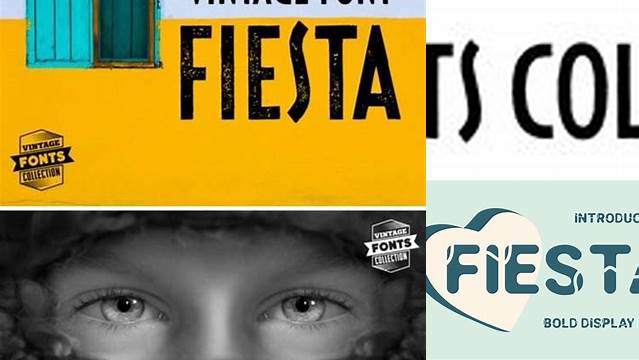
VFC Fiesta Font: Free Download & Vintage Font Collection Guide
Hey guys! Are you looking to add some vintage flair to your projects? You've come to the right place! We're diving deep into the world of vintage fonts, specifically the awesome VFC Fiesta font. This guide will give you the lowdown on how to snag this font for free, plus explore a whole collection of other vintage fonts that'll make your designs pop. Let's get started!
1. Introduction to Vintage Fonts
Vintage fonts are more than just old-fashioned typefaces; they are a gateway to different eras, each carrying its own unique story and aesthetic. From the elegant serifs of the Victorian era to the bold, geometric sans-serifs of the mid-century modern movement, these fonts offer a rich tapestry of styles that can add depth and character to any design project. Vintage fonts evoke nostalgia and history, making them perfect for creating a sense of authenticity and timelessness. They can transport your audience to another time, enhancing the emotional impact of your message. Whether you're working on branding, posters, websites, or any other design endeavor, incorporating vintage fonts can instantly elevate your work, giving it a distinctive and memorable appeal. Understanding the nuances of these fonts – their historical context, their stylistic characteristics, and their best uses – is crucial for harnessing their full potential.
Why are vintage fonts so popular today? One key reason is their ability to create a sense of authenticity and nostalgia. In a world dominated by sleek, modern designs, vintage fonts offer a refreshing contrast, reminding us of simpler times and classic aesthetics. They carry a weight of history, suggesting craftsmanship, quality, and attention to detail. This makes them particularly effective for brands that want to communicate a sense of heritage, tradition, or timelessness. Moreover, vintage fonts are incredibly versatile. They can be adapted to a wide range of applications, from logos and headlines to body text and decorative elements. By choosing the right vintage font, you can add personality and character to your project, making it stand out in a crowded marketplace. The ongoing revival of vintage styles in fashion, interior design, and other creative fields further fuels the demand for vintage fonts, making them an essential tool in any designer's arsenal.
2. What is VFC Fiesta Font?
The VFC Fiesta font is a standout typeface in the realm of vintage fonts, known for its lively and festive character. Designed to capture the spirit of celebration and joy, this font is perfect for projects that require a touch of whimsy and nostalgia. The VFC Fiesta font typically features bold, playful letterforms with unique details that set it apart from more conventional vintage fonts. Its design often includes decorative elements, such as swirls, curls, or serifs, that add to its distinctive personality. This font is particularly well-suited for headlines, posters, invitations, and other display purposes where a strong visual impact is desired. The VFC Fiesta font exudes energy and vibrancy, making it an excellent choice for events, parties, or any project that aims to convey a sense of fun and excitement.
The unique characteristics of the VFC Fiesta font make it a favorite among designers looking to create eye-catching and memorable designs. Its bold letterforms ensure legibility, while its decorative elements add a touch of sophistication and charm. The font's festive nature makes it ideal for projects related to celebrations, such as birthdays, holidays, or festivals. It can also be used effectively in branding materials for businesses that want to project a playful and approachable image. The VFC Fiesta font is versatile enough to be used in both digital and print media, allowing for a wide range of creative applications. Whether you're designing a poster, a logo, or an invitation, this font can help you create a design that truly stands out. Its ability to capture attention and convey a sense of joy makes it a valuable asset in any designer's toolkit.
3. Key Features of VFC Fiesta Font
The VFC Fiesta font is characterized by several key features that make it a unique and valuable asset for designers. First and foremost, its bold letterforms ensure high readability, making it suitable for a variety of applications, from headlines to posters. The distinct decorative elements, such as unique serifs, swirls, and curves, add a touch of personality and charm, setting it apart from more generic vintage fonts. These details contribute to the font's overall festive and playful character, making it an excellent choice for projects that aim to convey a sense of joy and celebration. The font's design often incorporates a sense of rhythm and movement, creating a dynamic visual impact that captures the viewer's attention. This makes the VFC Fiesta font particularly effective for creating eye-catching designs that stand out.
Another important feature of the VFC Fiesta font is its versatility. While it is particularly well-suited for festive and celebratory designs, it can also be adapted to a variety of other applications. Its bold and legible letterforms make it suitable for branding materials, logos, and headlines, while its decorative elements can add a touch of sophistication to invitations and posters. The font's unique character can also be used to create a sense of nostalgia or retro charm, making it a valuable choice for projects that aim to evoke a specific era or mood. The VFC Fiesta font is often available in multiple weights and styles, further enhancing its versatility and allowing designers to create a wide range of visual effects. Whether you're working on a digital or print project, this font can be a valuable asset in your design toolkit. Its ability to combine readability with decorative flair makes it a standout choice for any project that requires a touch of personality and charm.
4. Where to Find VFC Fiesta Font for Free
Finding vintage fonts like the VFC Fiesta font for free can be a bit of a treasure hunt, but there are several avenues you can explore. Many websites specialize in offering free fonts, including those with a vintage aesthetic. These sites often feature collections of fonts that are either public domain, licensed under a creative commons license, or offered for free by the designers themselves. It's essential, however, to always double-check the licensing terms before using a font in your project, especially for commercial purposes. Some fonts may be free for personal use but require a commercial license for business applications. Popular font repositories like DaFont, FontSpace, and Google Fonts often have a wide selection of vintage fonts available for free download.
Another strategy for finding the VFC Fiesta font or similar vintage fonts is to participate in online design communities and forums. These platforms often have sections dedicated to font sharing and recommendations, where members may share links to free fonts or provide guidance on where to find specific typefaces. Social media groups focused on design can also be a valuable resource, as members frequently share free resources and tips. Additionally, many independent designers and foundries offer free fonts as a way to promote their work. Subscribing to newsletters and following designers on social media can help you stay informed about new free font releases. When searching for free vintage fonts, it's also a good idea to use specific keywords, such as